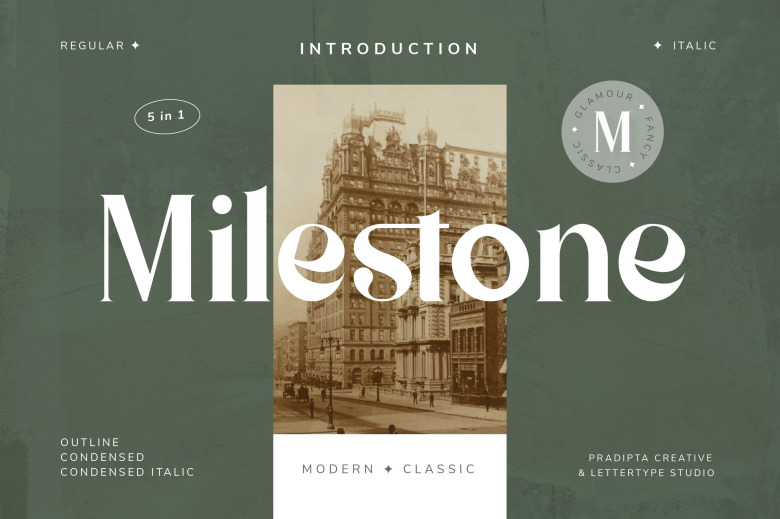
Milestone Font
Milestone is a modern, classic and elegant serif font. No matter the topic, this font will be an incredibly asset to your fonts’ library, as it has the potential to elevate any creation. This font will be perfect use for your logo design, branding, clothing, signage, header, posters, wedding invitations and so much more!